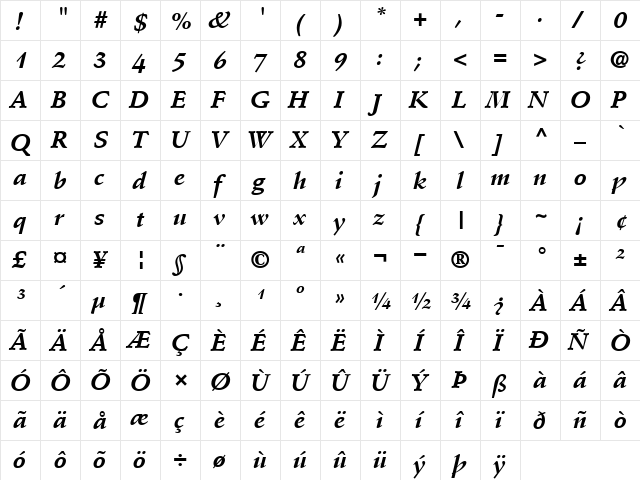
StempelSchneidler BoldItalic
Design Context for StempelSchneidler Typeface
StempelSchneidler takes a measured approach to typography — its balanced proportions and neutral character make it a reliable workhorse for both digital and print work. Its italic angle brings a sense of urgency and motion to the letterforms. Its bold stroke weight gives it real presence on the page.
Pro Tip: Try StempelSchneidler for annotation and caption copy alongside an upright companion — the contrast in angle creates a dynamic but ordered typographic system.